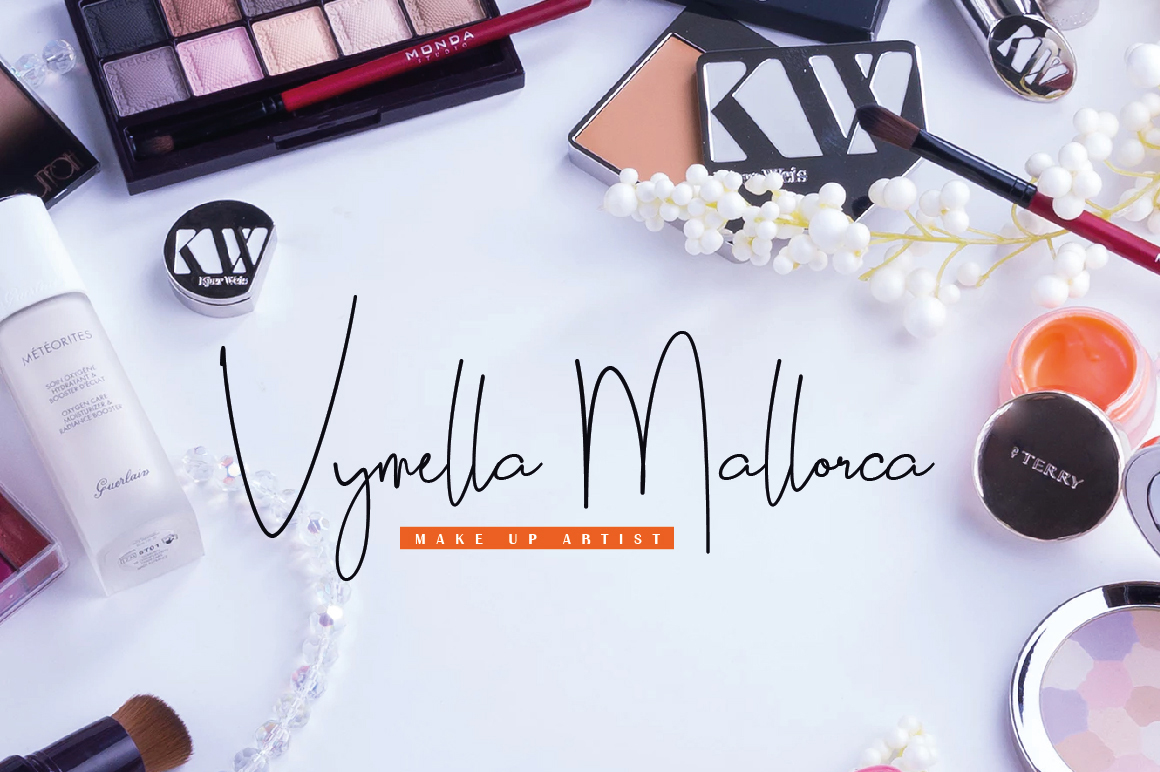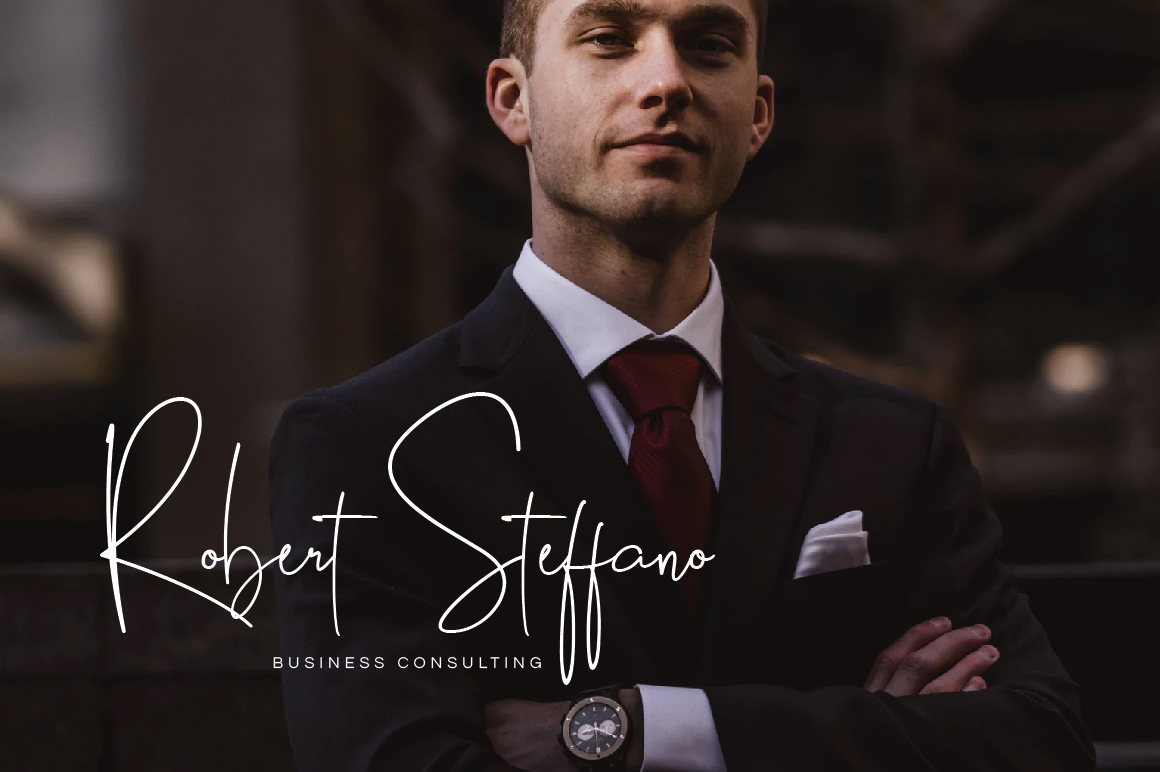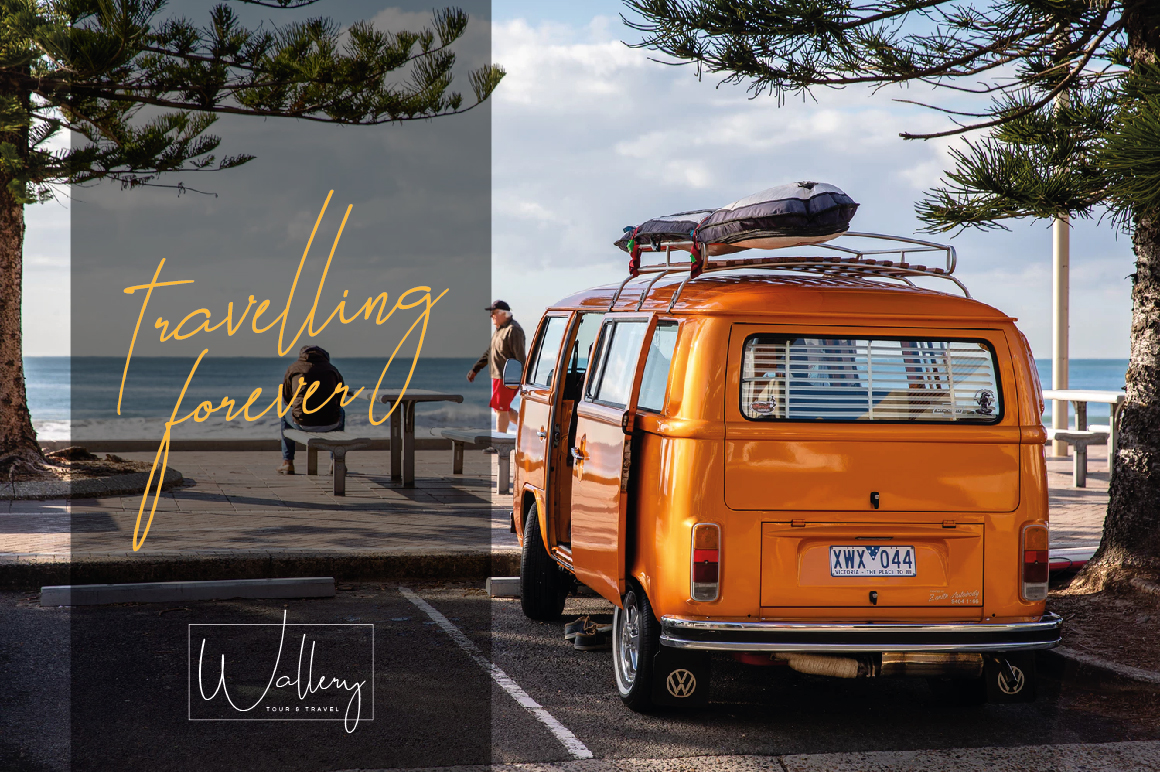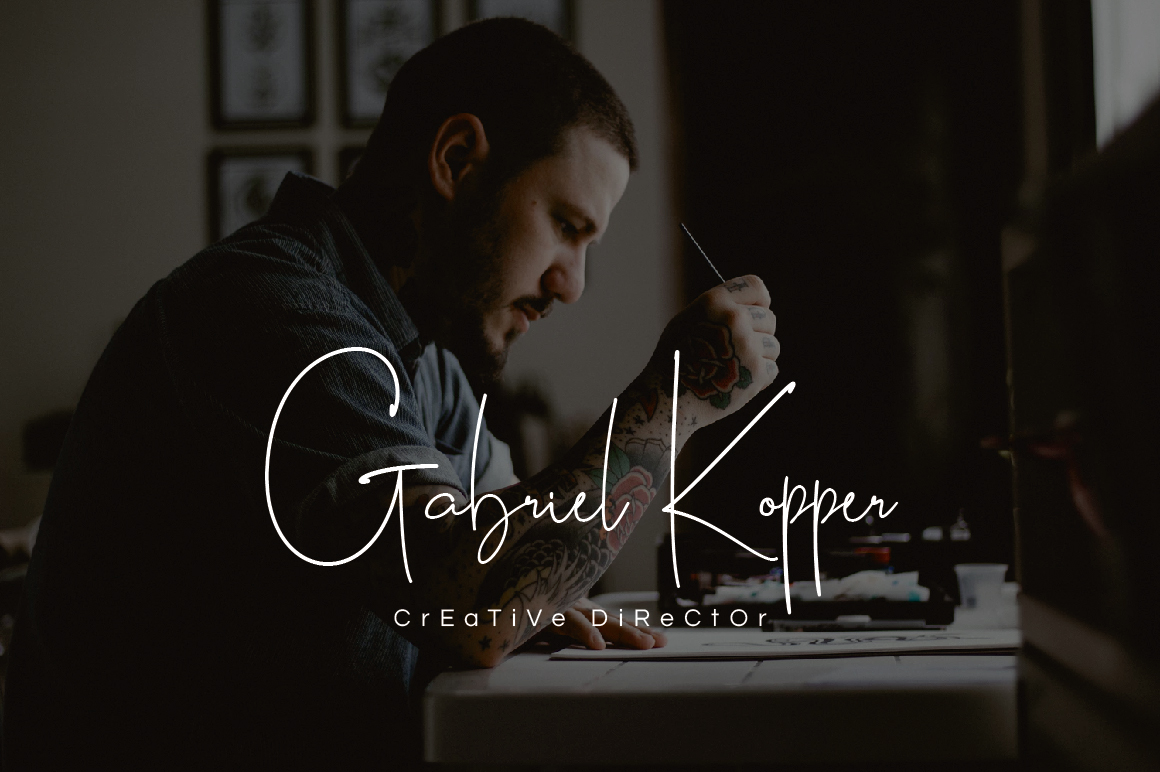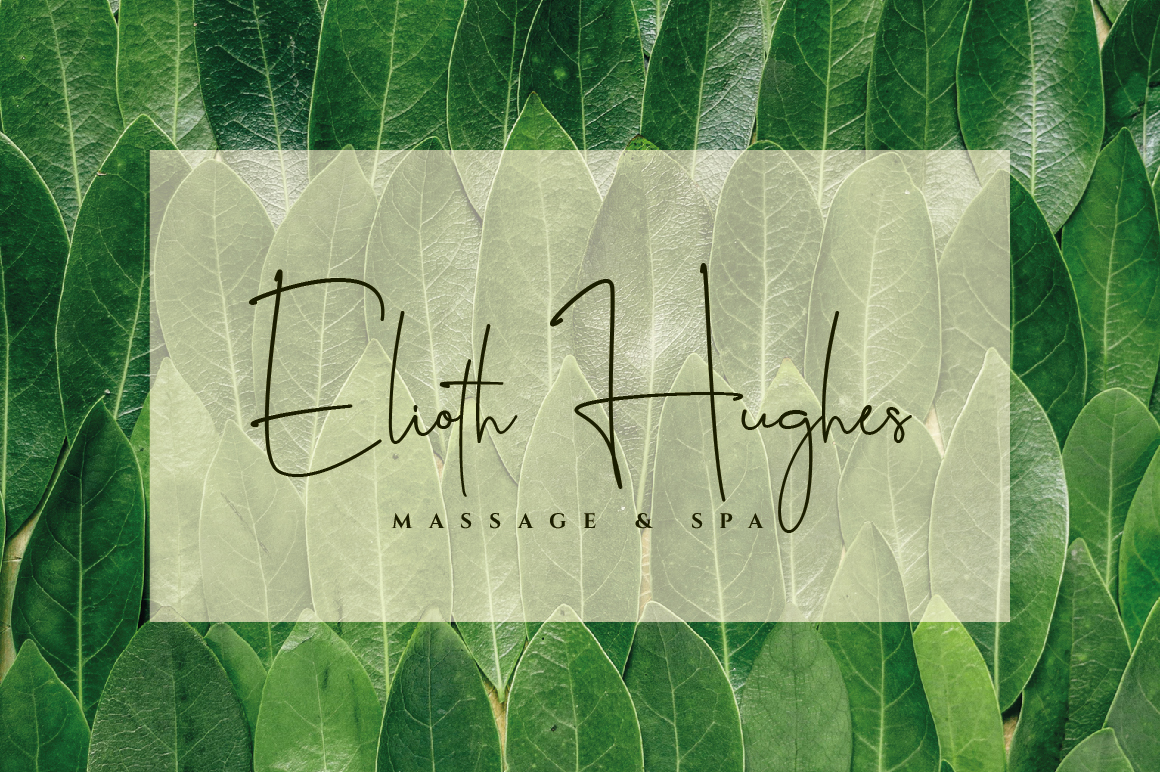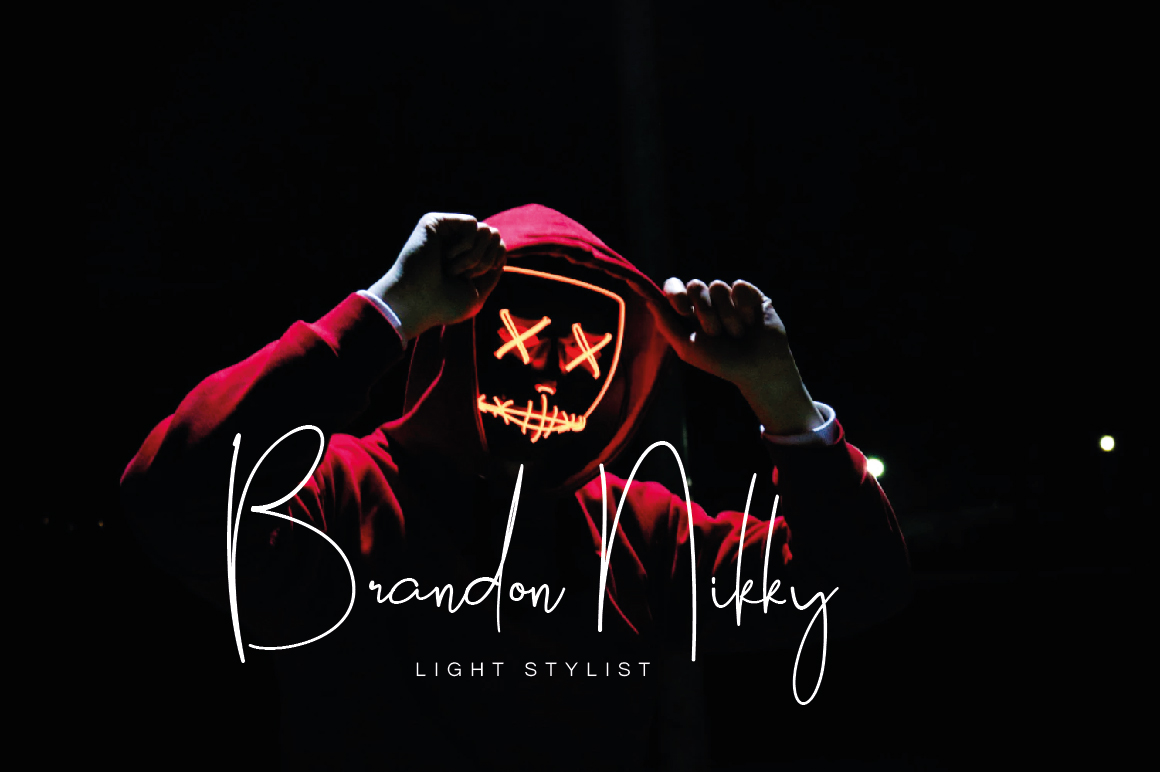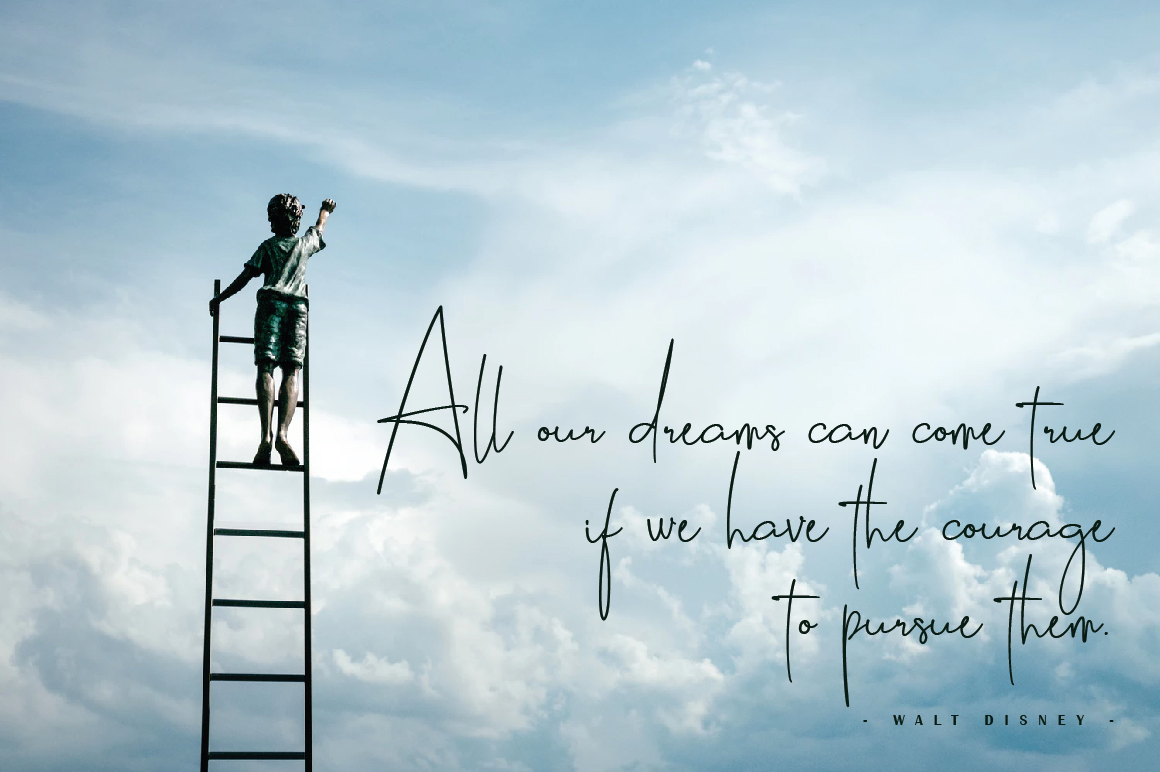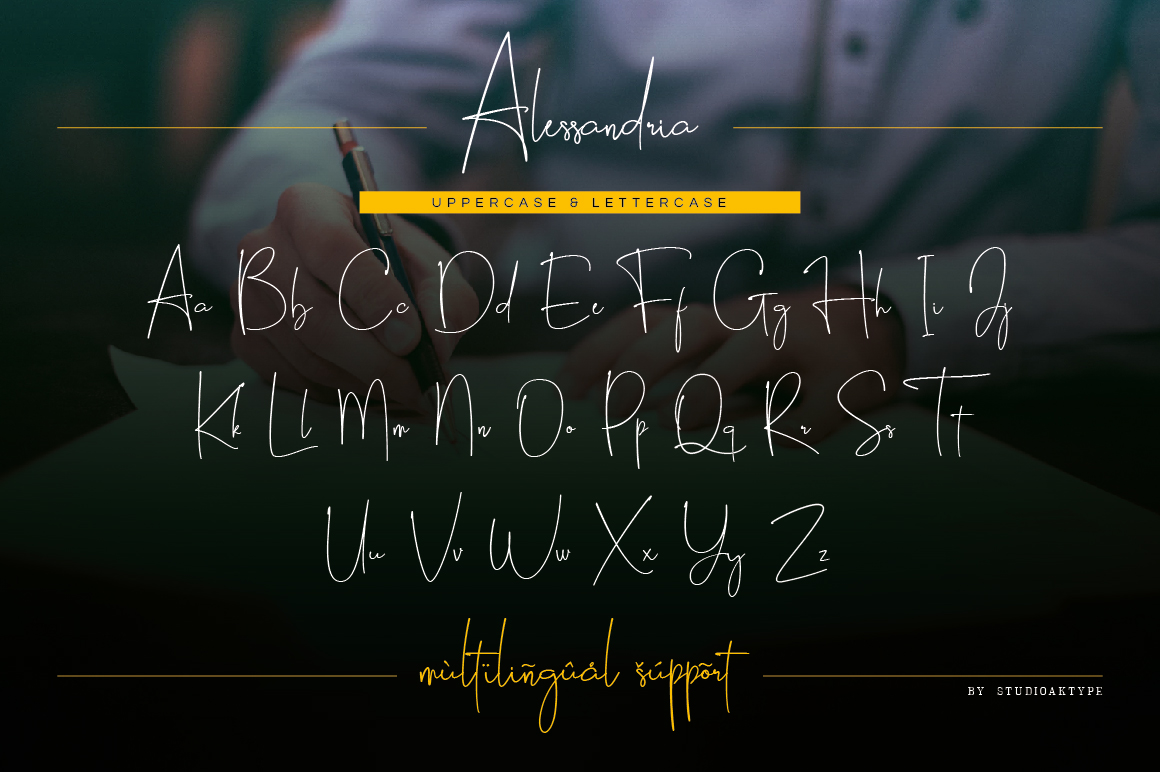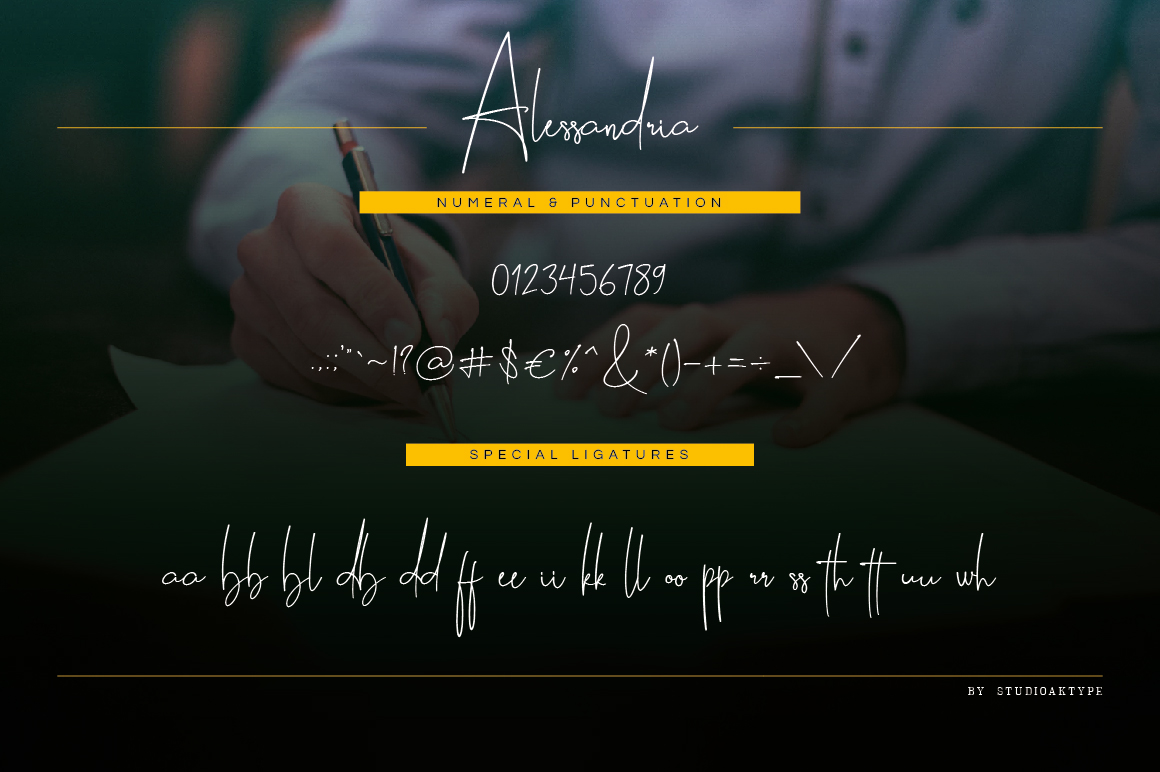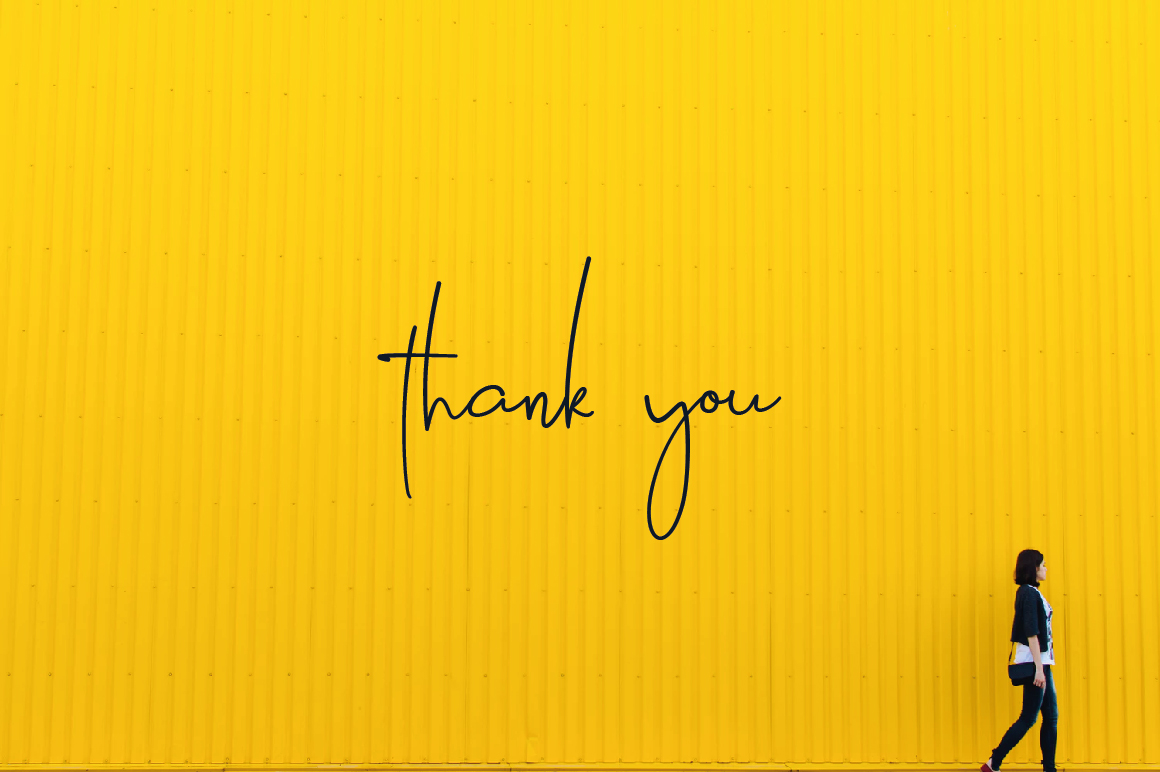
If you’re looking for that perfect signature and quote font, take a look at Alessandria Signature. Designed by Studio AKTYPE, this classy font is loaded with style and it’s the perfect font choice for watermarks, signatures, photography, logos, business cards. Free for personal use! For the commercial use please check here.